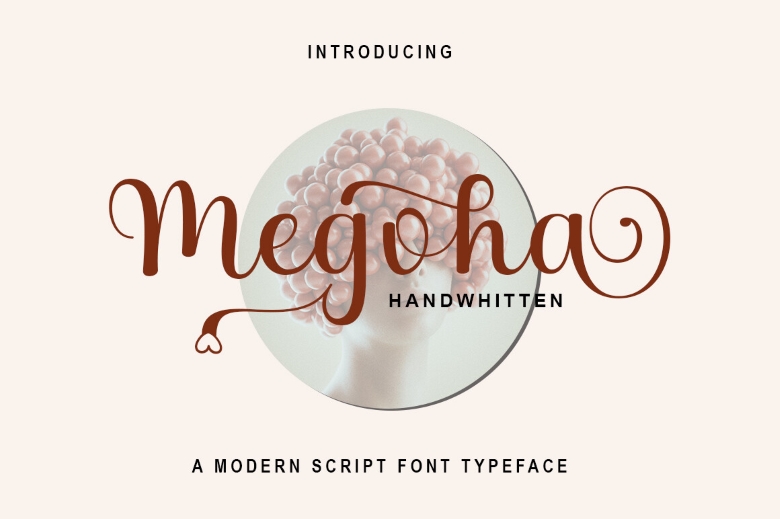
Megoha Font
Megoha is a script fonts that looks graceful like the flowing water and comes with a touch of modernity. Thanks to its curvilinear and polished shapes, it conveys energy and sophistication, being suitable for any design field such as logos, events/displays advertisement, and online networking.
It is carefully designed with usability in mind and can be truly recommended for designers who are looking for something which looks good but can also work well. Megoha is made diverse ligatures and alternate characters enabling the creative freedom in creating textual design.
Megoha Handwritten Script Font